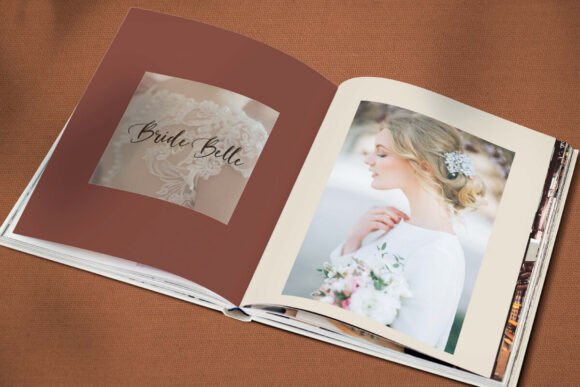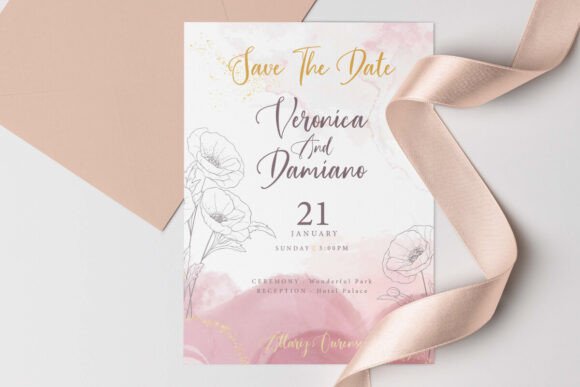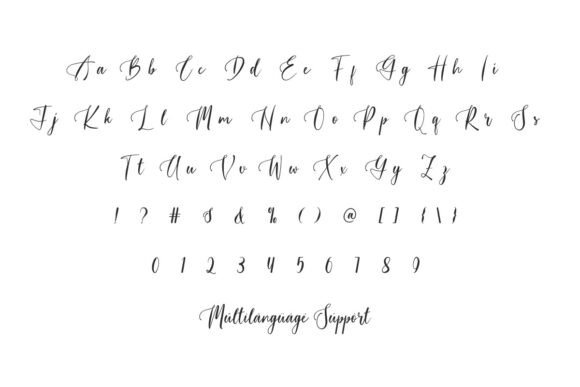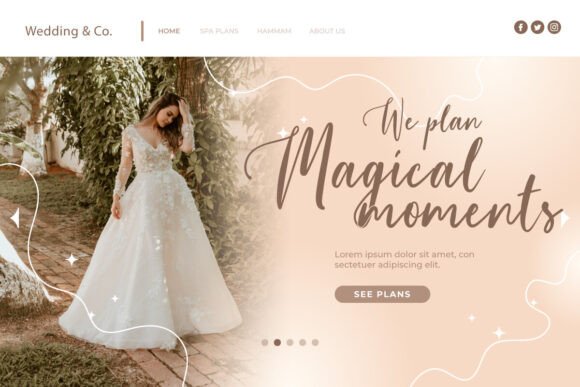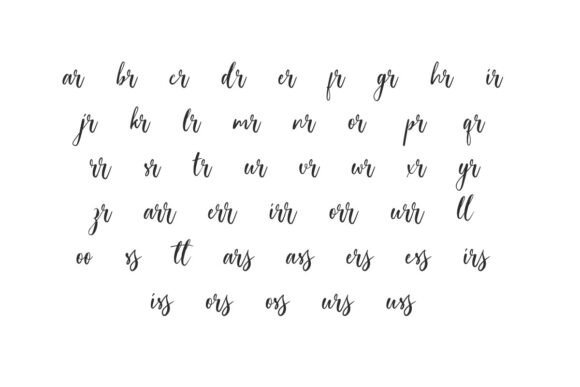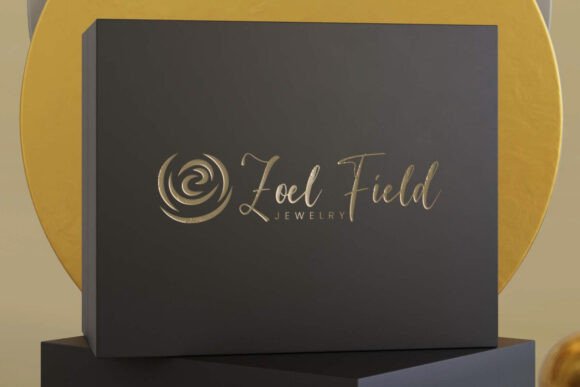
The Perfect Script for a Memorable Union
Have you ever been inspired by a beautiful wedding invitation, and couldn’t help but feel a sense of excitement and joy? For designers, creating a stunning visual representation of a special occasion is not only a creative challenge, but also a privilege to be a part of. Whether it’s a wedding, anniversary, or any other celebration, the right font can elevate the design and make it truly unforgettable.
Introducing the Bride Belle Font, a stunning calligraphic script designed to capture the essence of romance and elegance. With its long back tails and formal style, this font is perfect for a wide range of designs, from invitations and brochures to product packaging and custom designs. As a designer, you’ll appreciate the versatility and sophistication that Bride Belle Font brings to your creations, making it a valuable addition to your design toolkit.
Bride Belle Font Key Features
- Font Family: Bride Belle Font is a modern calligraphy font designed to resemble a beautiful bride’s handwriting.
- Unique Characteristics: The font features elegant, flowing lines, and intricate details, making it perfect for wedding invitations, stationery, and other romantic designs.
- Font Style: Bride Belle Font comes in both uppercase and lowercase letters, with various ligatures and swashes to add a touch of personality to your designs.
Bride Belle Font Review
Overall, I think the Bride Belle font is a beautiful and elegant choice for wedding invitations and other special occasion designs. ✨ The soft, flowing curves and delicate details give it a romantic and feminine feel that’s perfect for weddings and anniversaries.
- ✨ The font is highly customizable, allowing you to adjust the size, color, and spacing to fit your design needs.
- ✨ The font files include a wide range of languages, making it a great choice for international designs.
- ✨ The font is also very legible, even at small sizes, which is important for wedding invitations and other small-print designs.
- ⚠️ The font is a bit on the thicker side, which may not be suitable for very modern or minimalist designs.
- ⚠️ The font may not be the best choice for bold or dramatic headlines, as it’s more suited to subtle and elegant typography.
Overall, I think the Bride Belle font is a great choice for wedding and special occasion designs. It’s elegant, customizable, and highly legible. However, it may not be the best fit for every design style or project.
For optimal results, use Bride Belle font in combination with elegant graphics and pastel colors. It’s ideal for wedding invitations, baby shower invitations, and other feminine-themed designs.
Bride Belle font is commonly used for:
- Wedding invitations
- Baby shower invitations
- Feminine-themed designs
- Wedding stationery
- Wedding website design